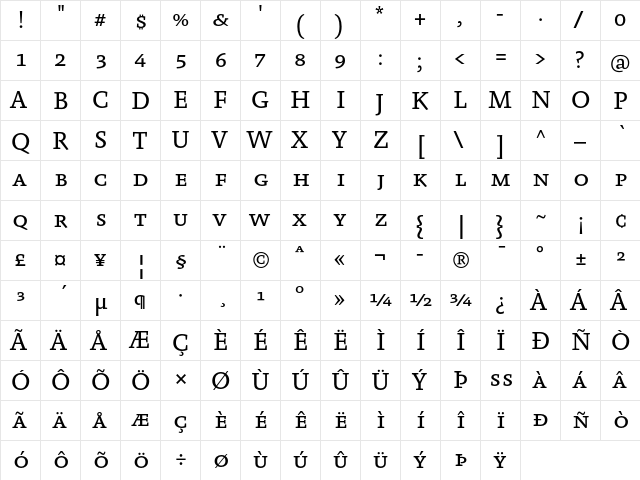
Absara TF Regular SC Regular
Design Context for Absara TF Regular SC Typeface
Absara TF Regular SC is a composed and adaptable typeface that performs quietly and consistently across a wide range of design contexts.
Pro Tip: Pair Absara TF Regular SC with a font of contrasting weight or personality to build a more expressive typographic hierarchy.